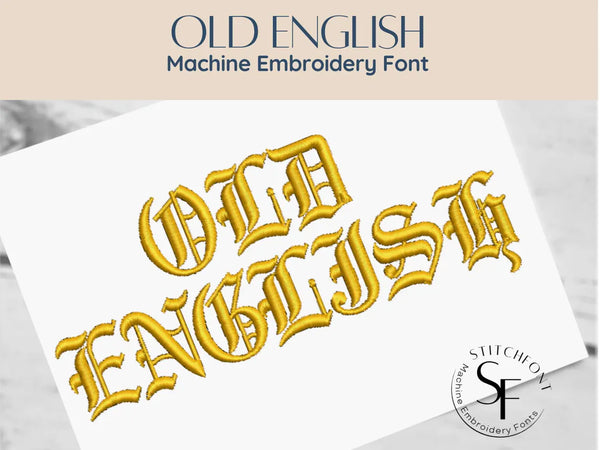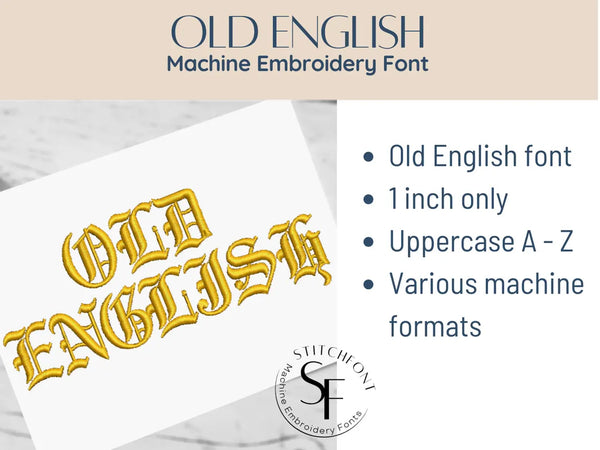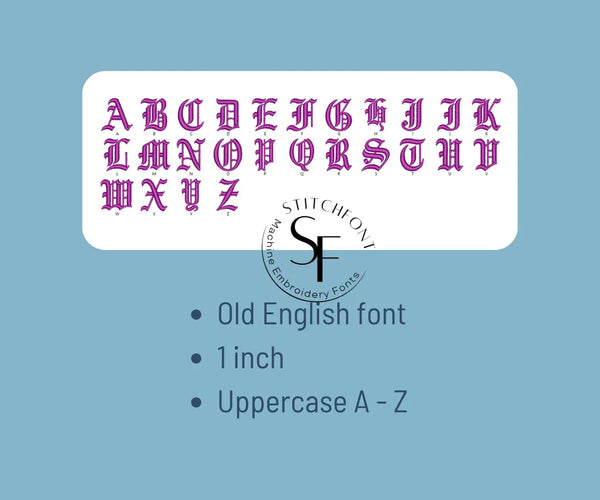
Old English Embroidery Font – Satin Stitch – 1 Inch Uppercase
Bring timeless elegance and bold character to your embroidery projects with this Old English Font. Featuring classic gothic-inspired lettering in a smooth satin stitch finish, this font is perfect for adding a regal, medieval, or vintage touch to names, initials, and monograms.
* Satin stitch embroidery font
* Size: 1 inch tall letters
* Includes: A–Z Uppercase Letters